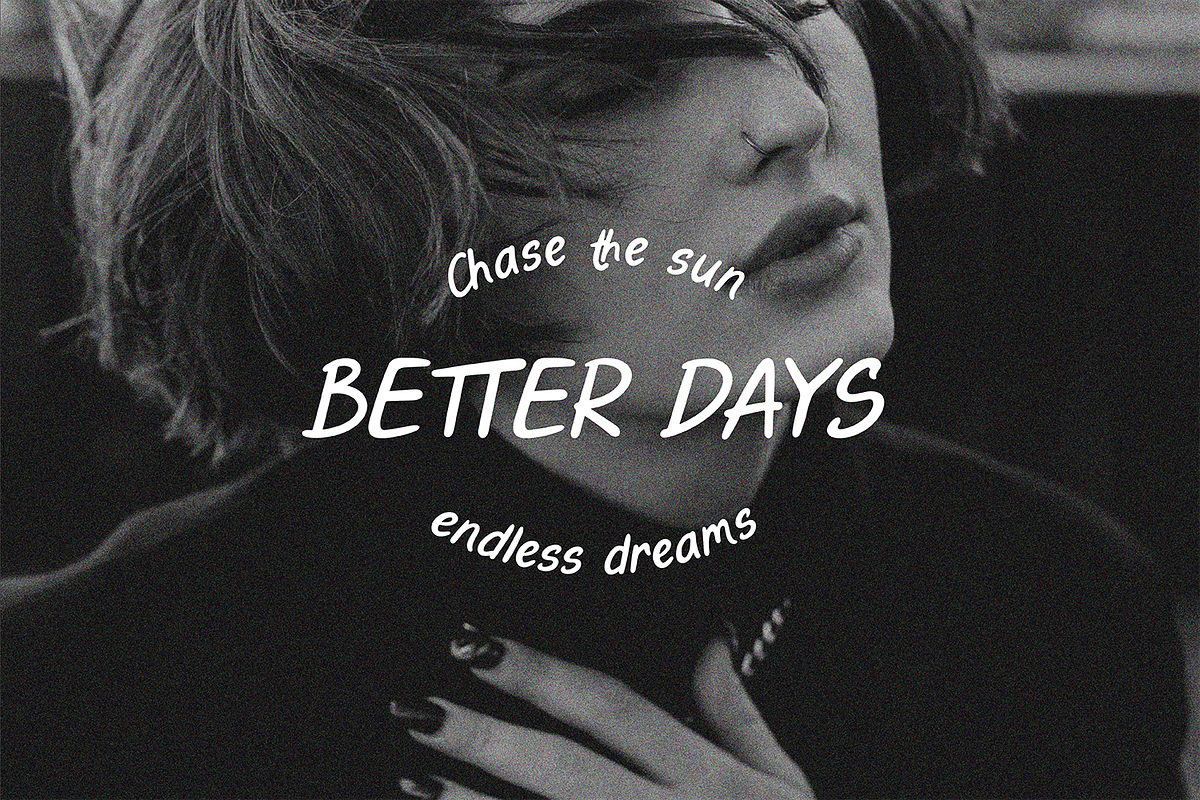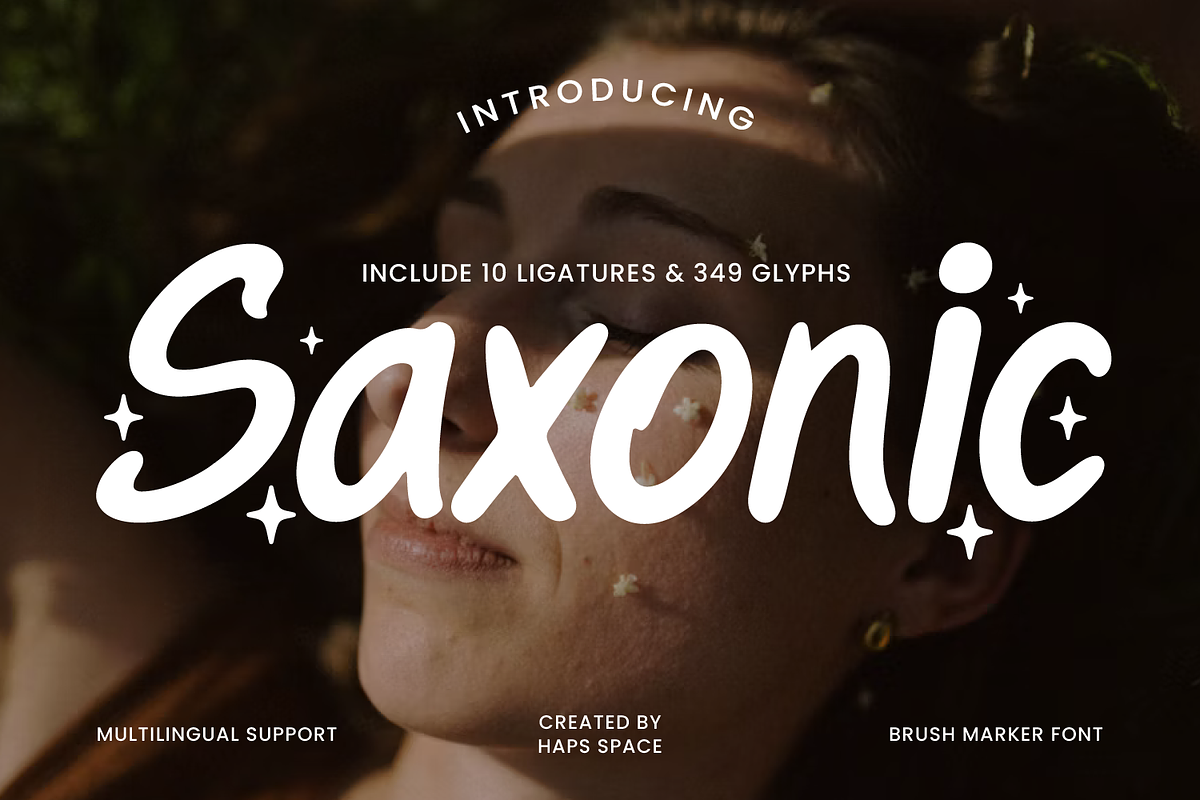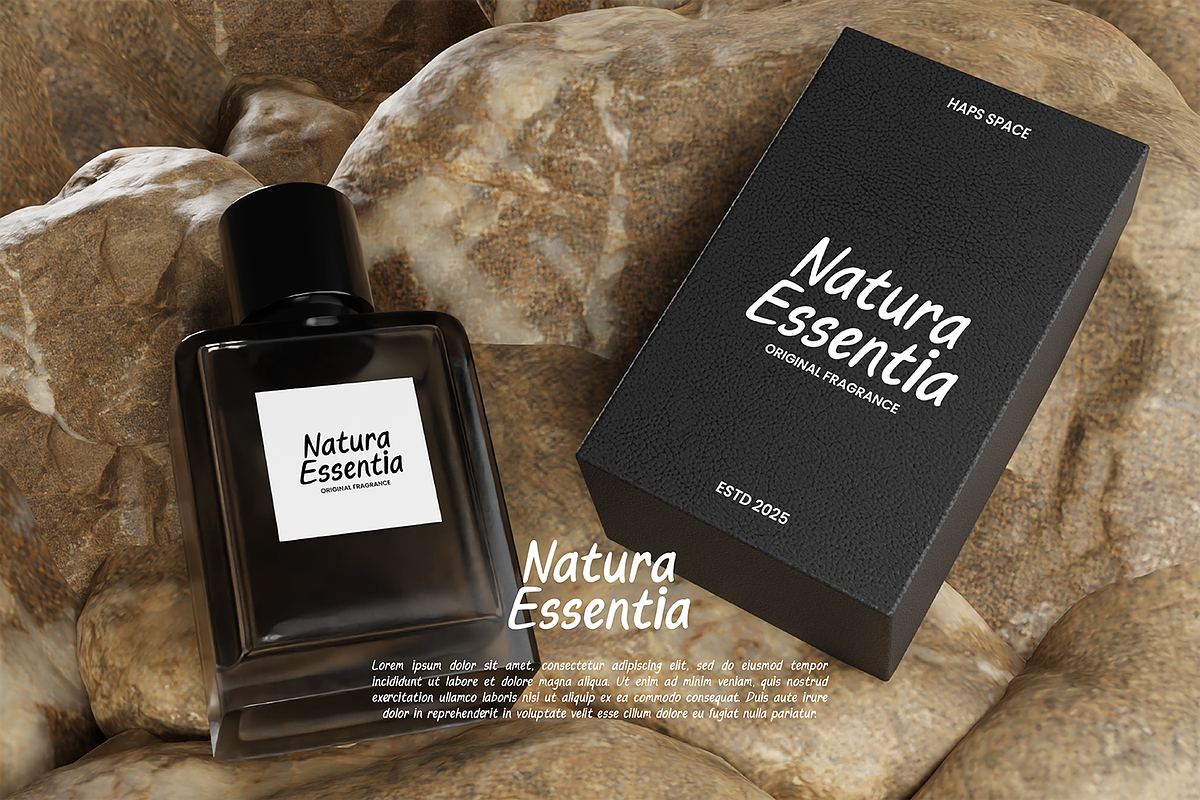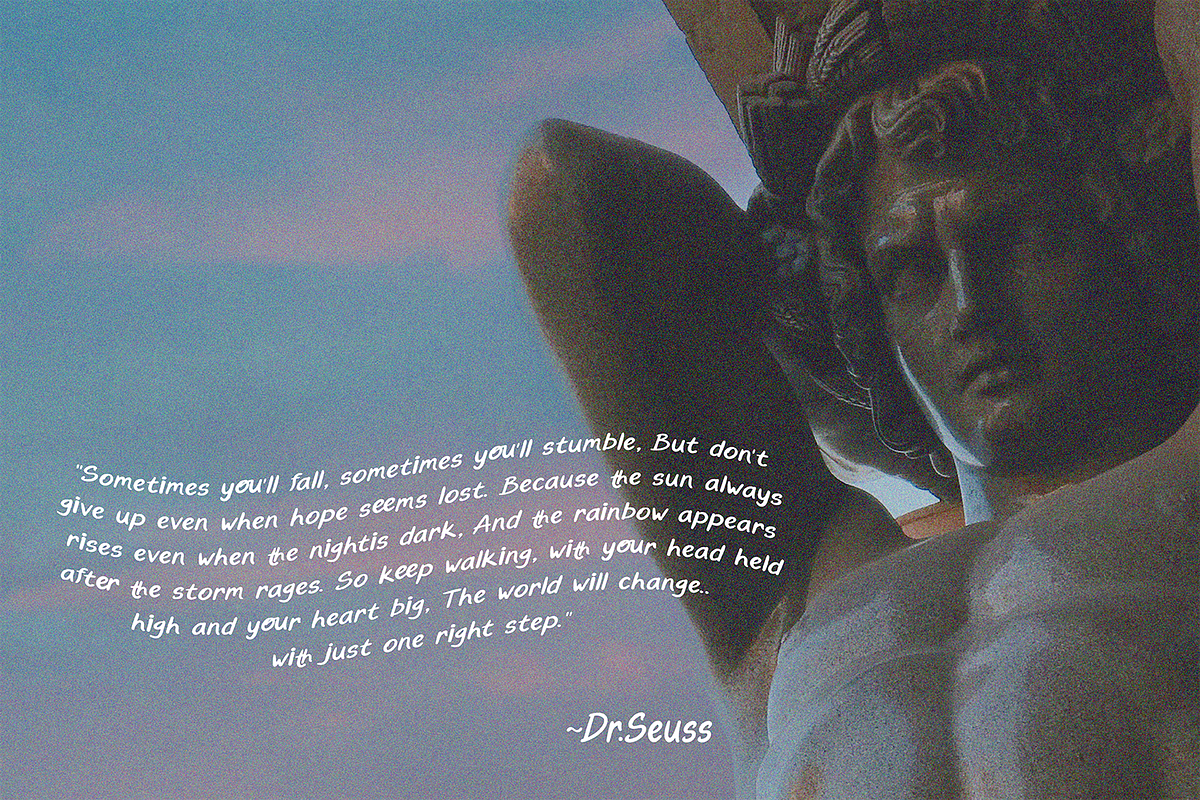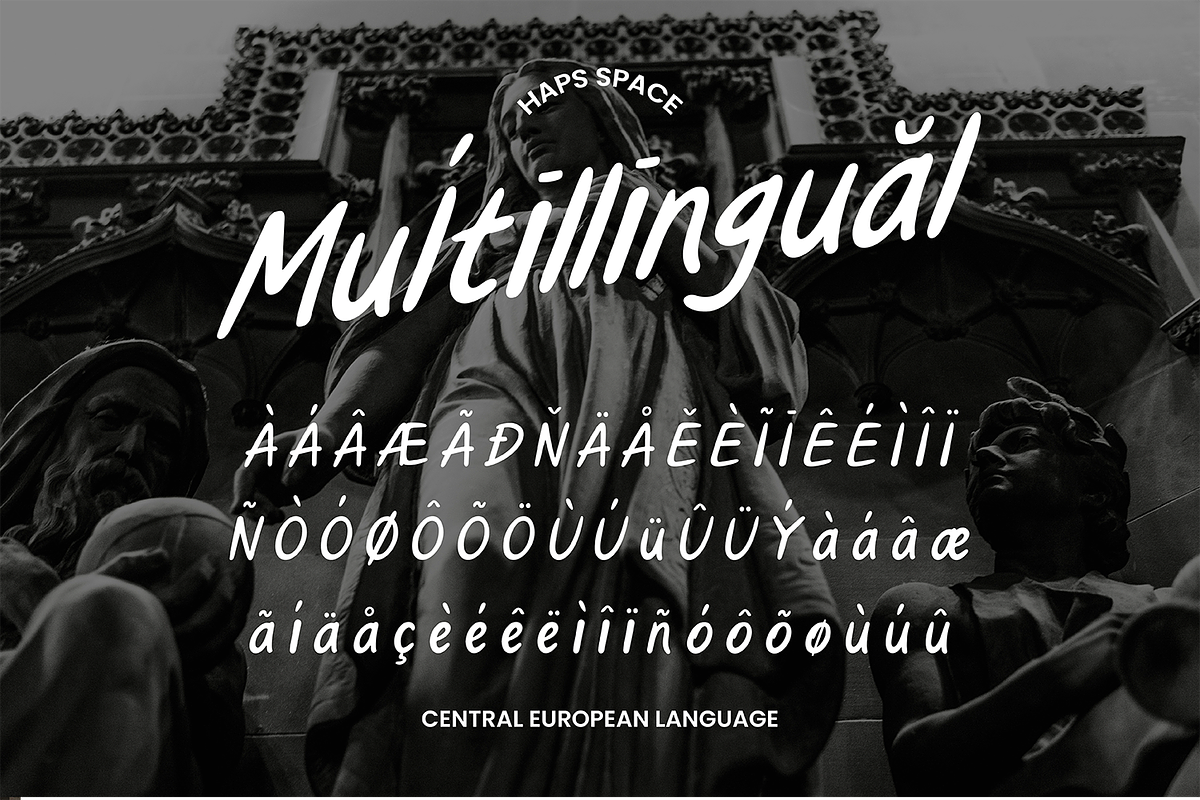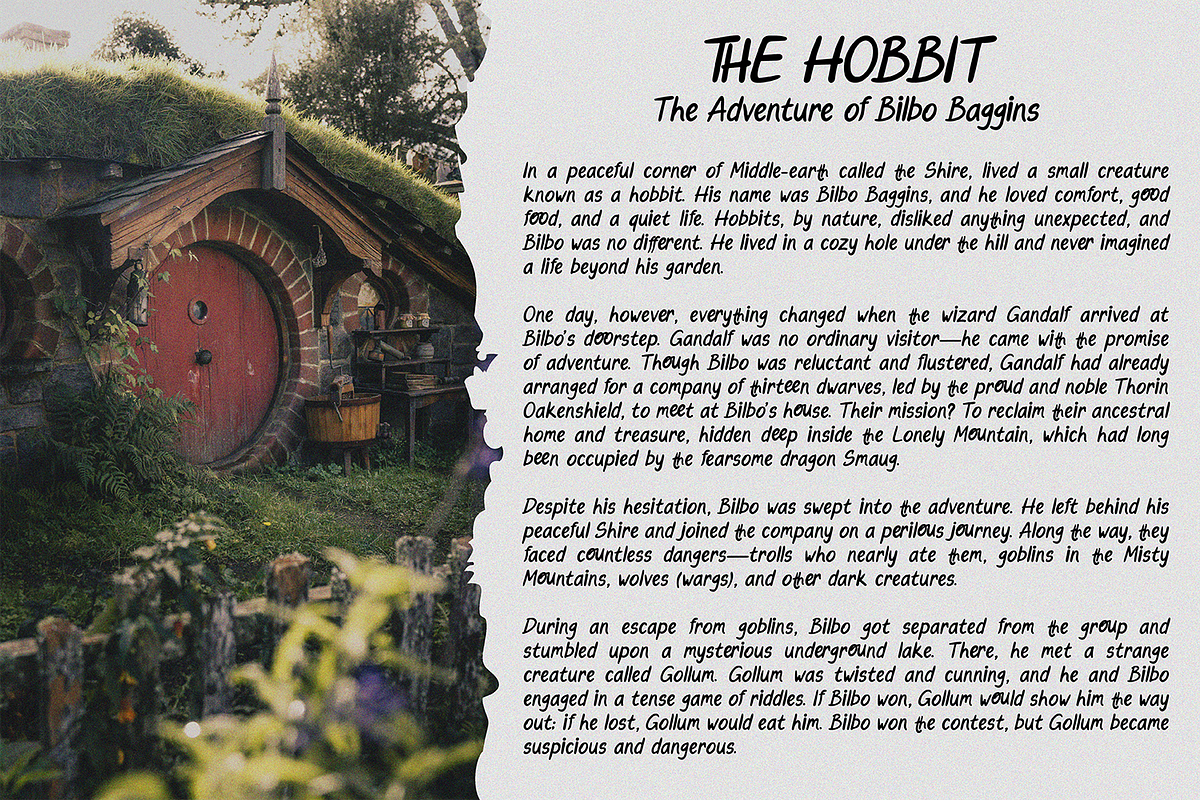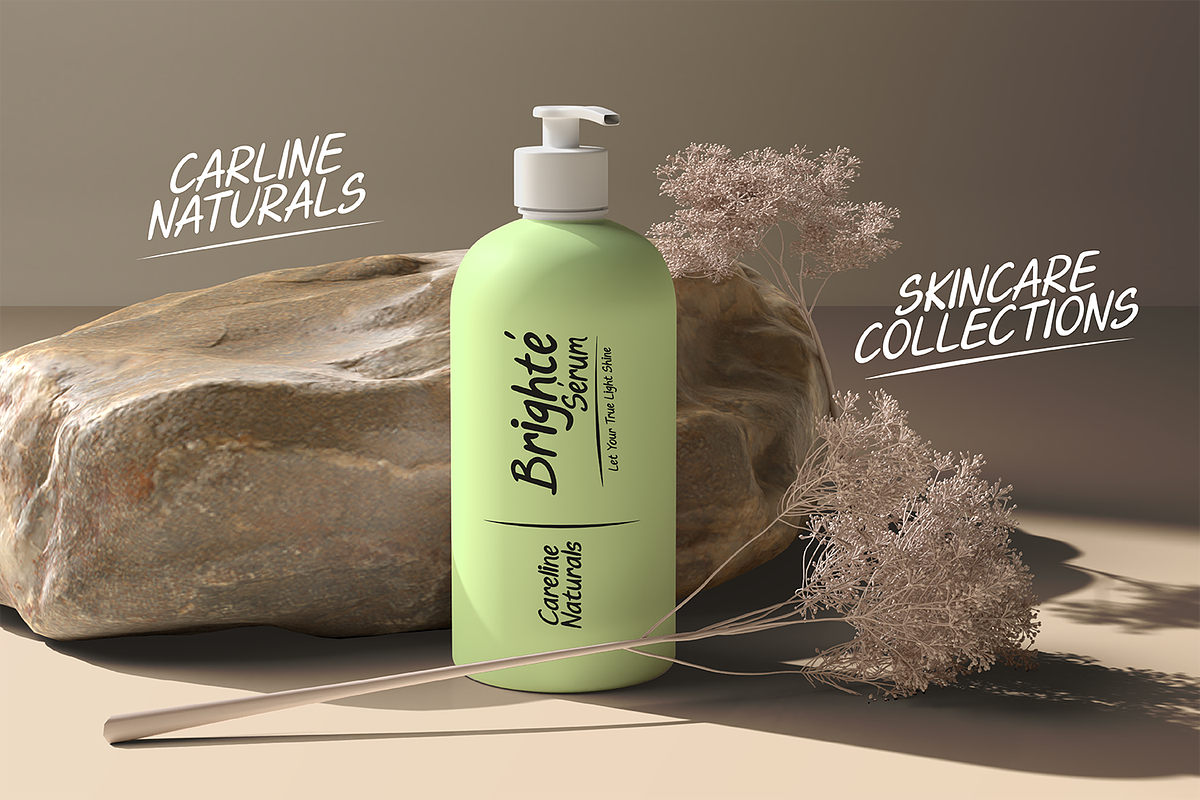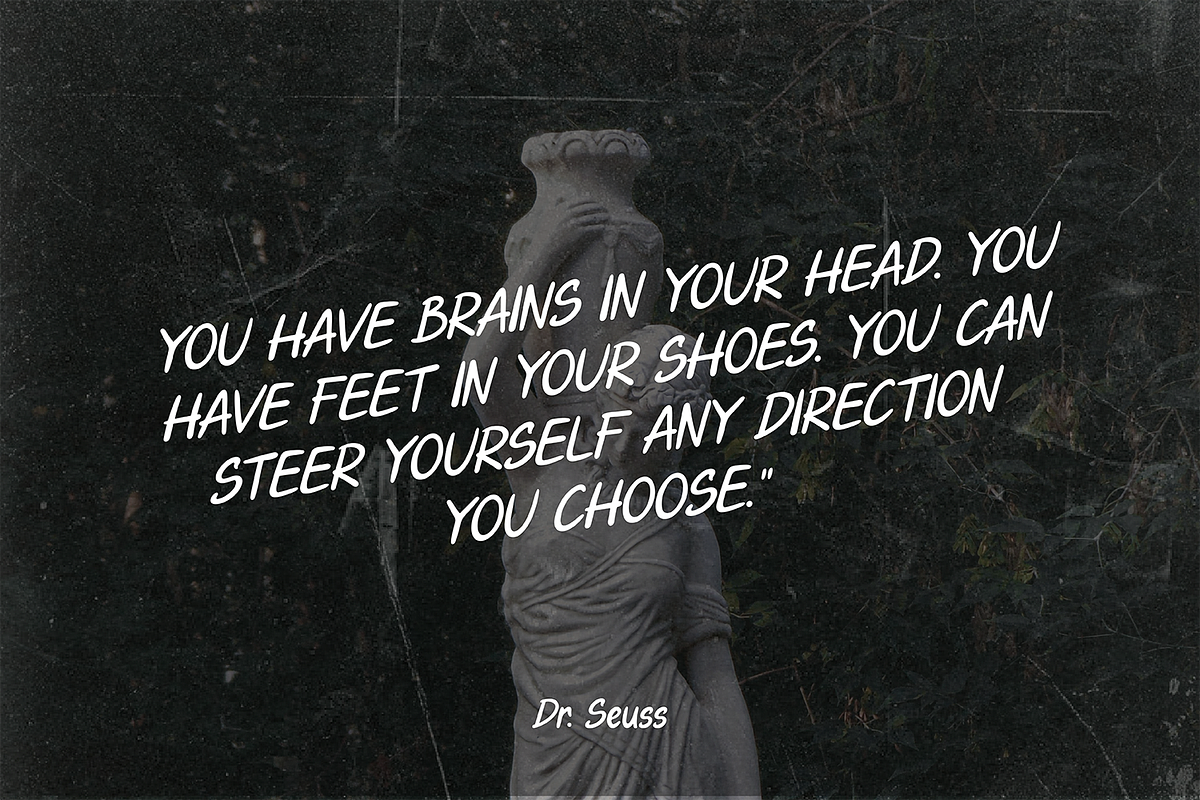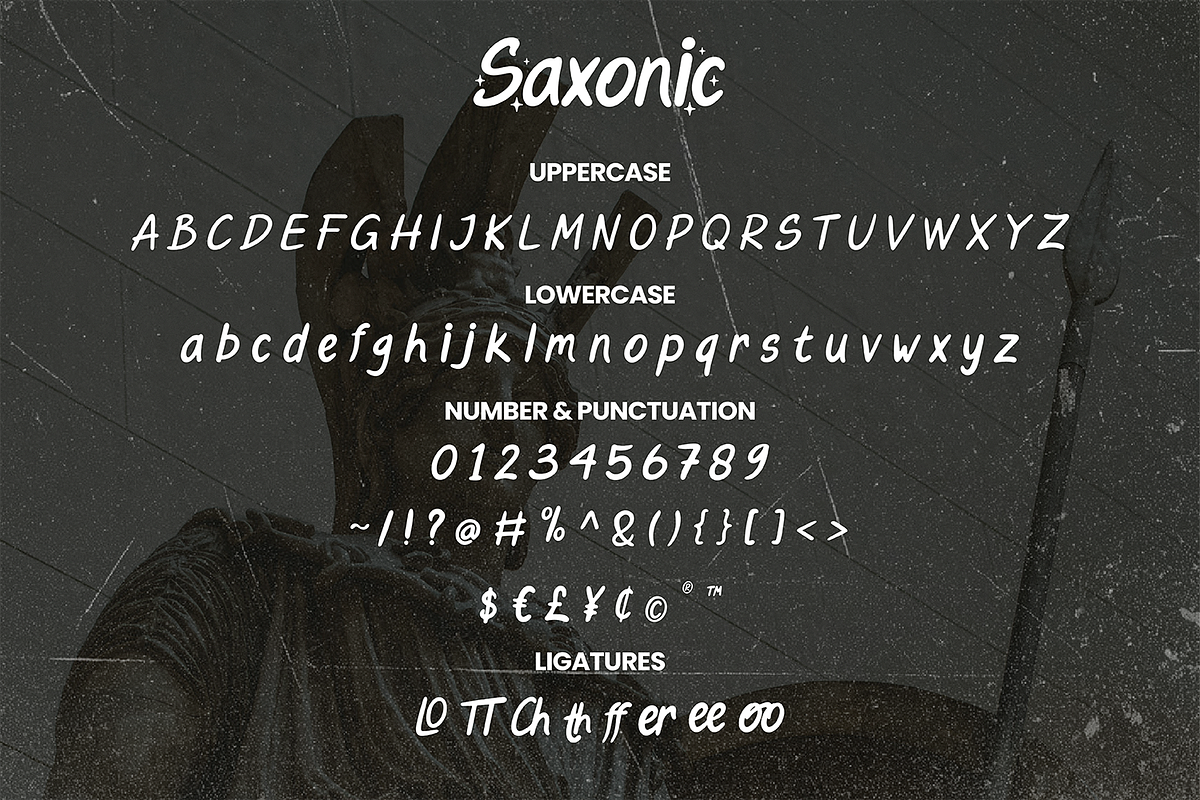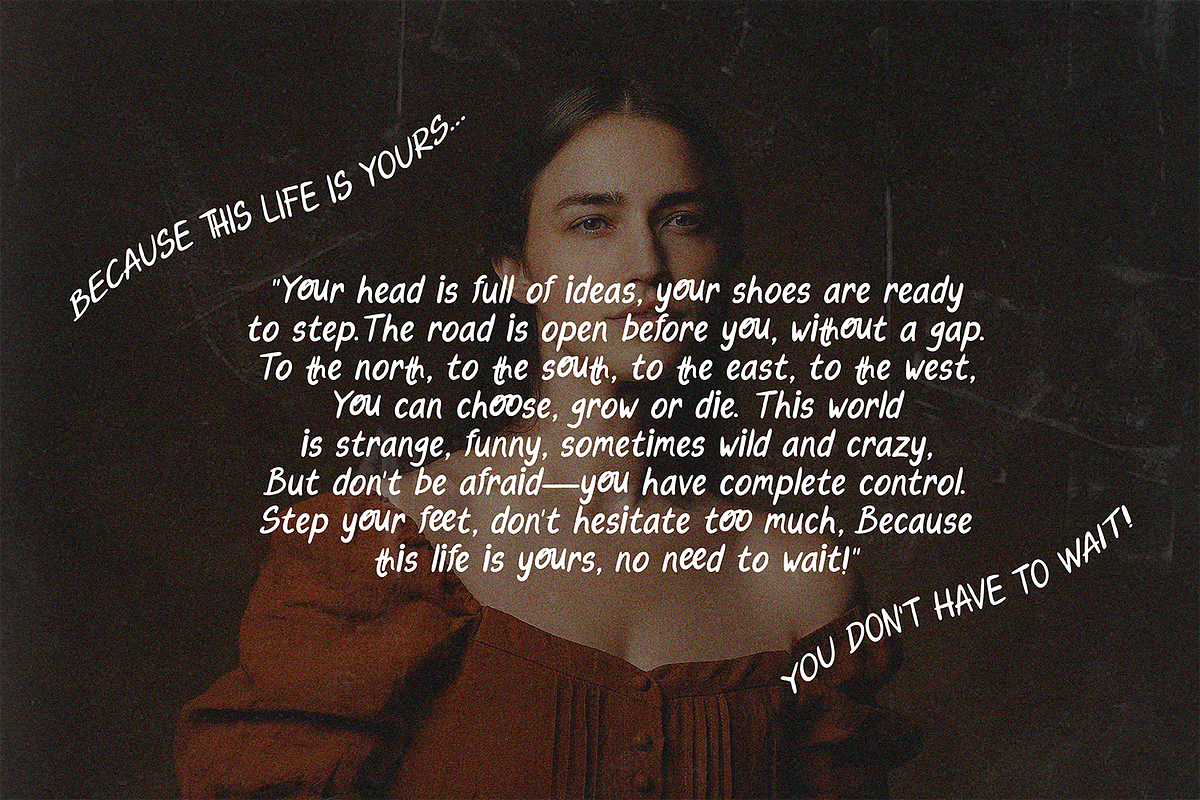
Saxonic Brush Maker
Saxonic is a stylish brush marker font that combines smooth strokes with a playful charm, perfect for creating warm, friendly, and handcrafted designs. With 349 glyphs and 10 beautiful ligatures, Saxonic offers versatility for both personal and professional use.
Whether you’re designing a logo, product packaging, greeting card, or social media content, Saxonic brings an organic, modern brush feel with just the right amount of personality. It also includes multilingual support to help you reach a global audience.
- 349 glyphs with full character set
- Includes 10 custom ligatures
- Smooth, brush-textured strokes
Great for:
- Branding & logo design
- Social media graphics
- Wedding & greeting cards
- Editorial & magazine titles
- Handmade product packaging